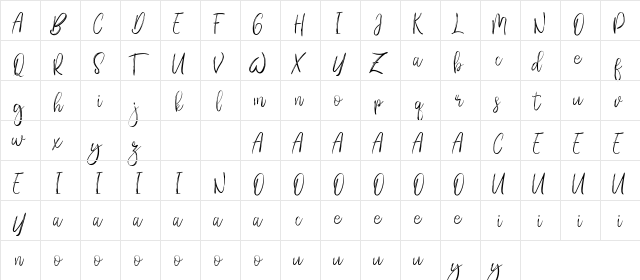
Holla Hearth Demo Regular
| Foundry | Edric Studio |
| Designer | Fajar Saepul Rohman |
Design Context for Holla Hearth Demo Typeface
Holla Hearth Demo is a composed and adaptable typeface that performs quietly and consistently across a wide range of design contexts.